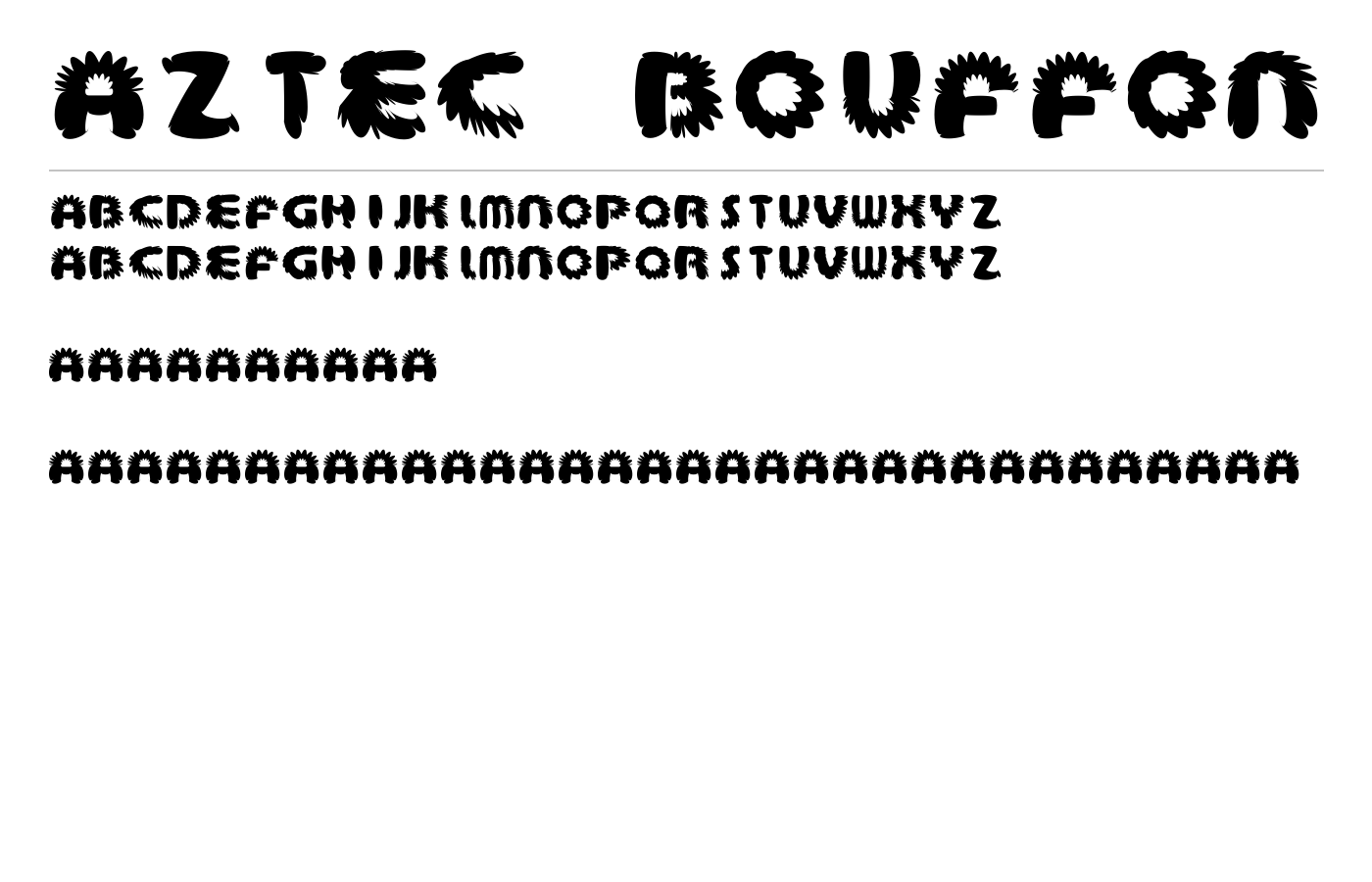
Aztec Bouffon is a bold and playful display font featuring unique, decorative letterforms with sharp, jagged edges that evoke a tribal or Aztec-inspired aesthetic. Its heavy weight and condensed structure make it perfect for eye-catching headlines and creative branding that seeks to convey energy and cultural flair. This font works best in expressive, artistic projects, packaging, and posters where its distinctive style can truly stand out.
aztec bouffon Font